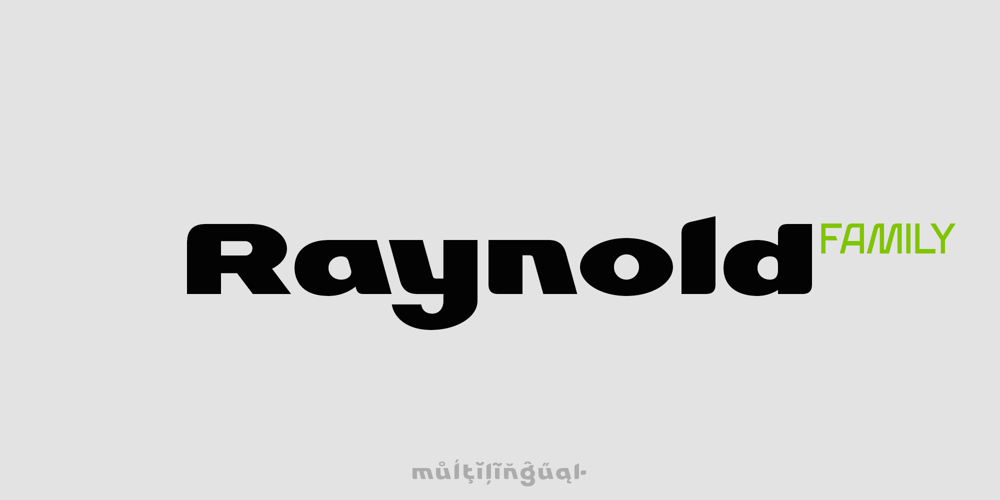
Raynold
Raynold font
Raynold Font Family was designed by Dmytro Poliakh and published by Sentavio. Raynold contains 3 styles and family package options. Raynold is modern sans family of three weights to create interesting headlines and text both.It has unusual look, so your project will look modern and unique.